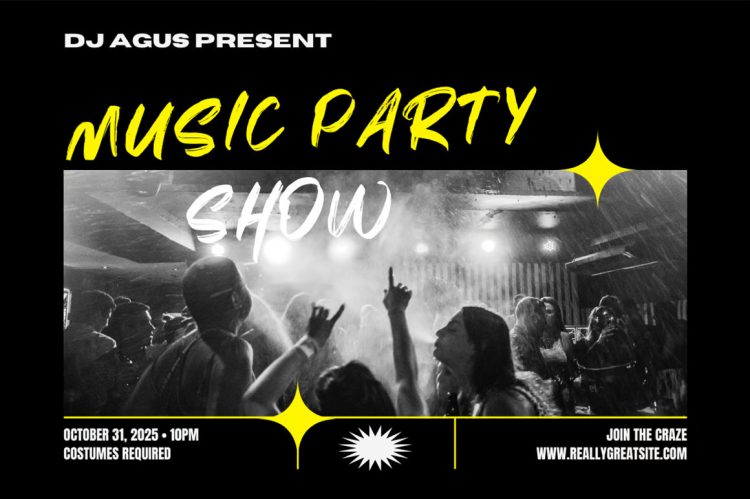
Holigan is brush font with natural rough dry brush strokes, and the stroke of hand sharp and quickly. You can use and enjoy Mattsolar, for anything from promotional material and handwritten quotes, to product packaging, merchandise and branding projects
You can apply them to designs like social media posts, logos, merchandise, book covers, posters, video content thumbnails, quotes, landing pages, wedding invitations and much more which you can make with this great item for any design 🙂
- Tons of glyphs
- Ligature
- Fonts include multilingual support for; ä ö ü Ä Ö Ü ß ¿ ¡